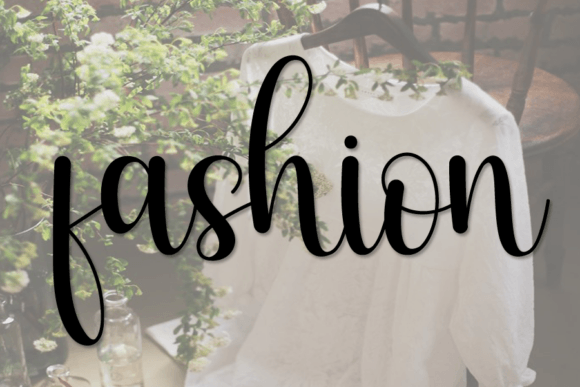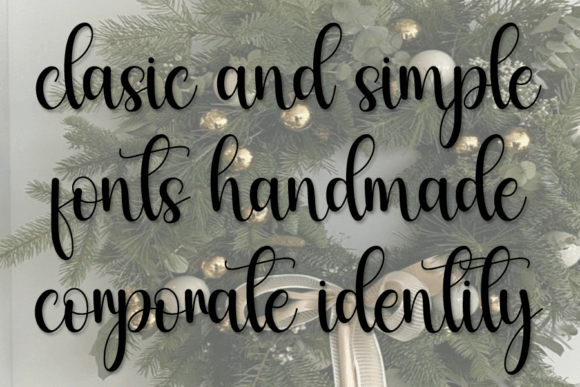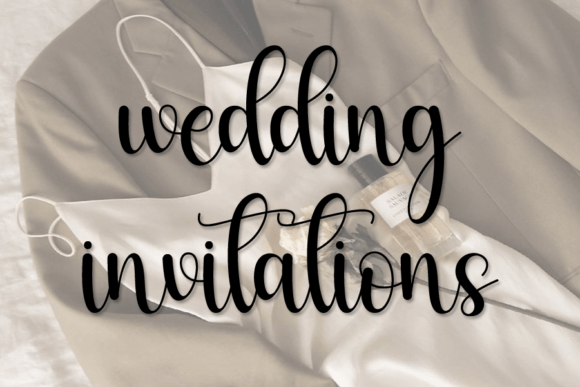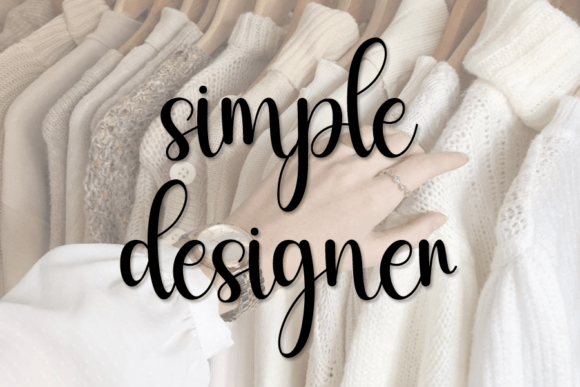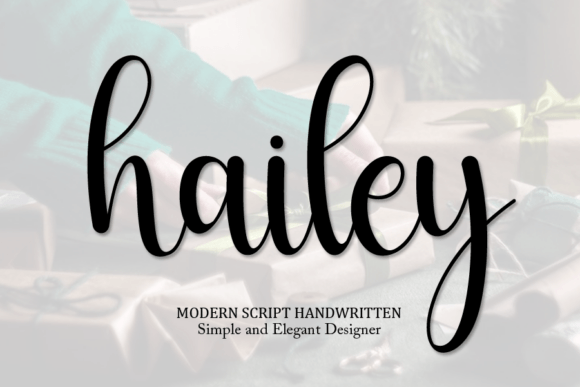
Discover the Charm of Hailey Font: A Classic Handwritten Script for Creative Projects
Are you a designer or crafter looking for a font that exudes simplicity, elegance, and a touch of randomness? Look no further than the Hailey Font. This classic handwritten script is perfect for a wide range of creative projects, from logotypes and headlines to corporate identity, brand identity, and more.
What is Hailey Font?
Hailey Font is a beautifully crafted handwritten script that boasts a simple, yet charming aesthetic. Created in a random and free style, this font is characterized by its effortless, cursive flow and classic appeal. Its unique blend of elegance and playfulness makes it an excellent choice for designers and crafters seeking to add a personal touch to their work.
Key Features of Hailey Font
- Classic and Simple Design: Hailey Font features a timeless, classic design that works well in a variety of contexts, from traditional to modern.
- Handwritten Script: The font’s handwritten script style gives it a personal, human touch that’s perfect for creating a connection with your audience.
- Random and Free Style: The font’s random and free style ensures that each letter and word has a unique, organic feel that’s sure to capture attention.
- Highly Versatile: Hailey Font is suitable for a wide range of creative projects, including logotype, headline font, corporate identity, brand identity, apparel industry, poster, music, movie, game, magazine, book, comic, cartoon, YouTube, Instagram, website, and more.
Use Cases for Hailey Font
Hailey Font is an incredibly versatile font that can be used in a variety of creative projects. Here are some examples of how you can use this beautiful font:
- Logotype and Branding: Use Hailey Font to create a unique and memorable logotype that reflects your brand’s personality and values.
- Headlines and Titles: Add a touch of elegance and sophistication to your headlines and titles with Hailey Font.
- Corporate Identity: Use Hailey Font to create a cohesive and professional corporate identity that sets your business apart.
- Apparel Industry: Hailey Font is perfect for creating stylish and eye-catching apparel designs, from t-shirts to hoodies.
- Poster and Print Design: Add a personal touch to your posters, flyers, and other print materials with Hailey Font.
- Digital Media: Use Hailey Font in your digital media projects, such as YouTube videos, Instagram posts, and website designs.
Why Choose Hailey Font?
With so many fonts to choose from, why should you choose Hailey Font for your creative projects? Here are just a few reasons:
- Unique and Eye-Catching: Hailey Font’s unique and eye-catching design ensures that your work will stand out from the crowd.
- Easy to Read: Despite its elegant and cursive style, Hailey Font is easy to read and understand, making it perfect for body text and headlines.
- Highly Versatile: Hailey Font can be used in a wide range of creative projects, from traditional to digital.
- Classic and Timeless: Hailey Font’s classic and timeless design ensures that your work will remain stylish and relevant for years to come.
In conclusion, Hailey Font is a beautiful and versatile handwritten script that’s perfect for designers and crafters looking to add a touch of elegance and sophistication to their creative projects. With its classic and simple design, random and free style, and highly versatile nature, Hailey Font is an excellent choice for a wide range of applications. So why not give Hailey Font a try today and see how it can elevate your work to the next level?